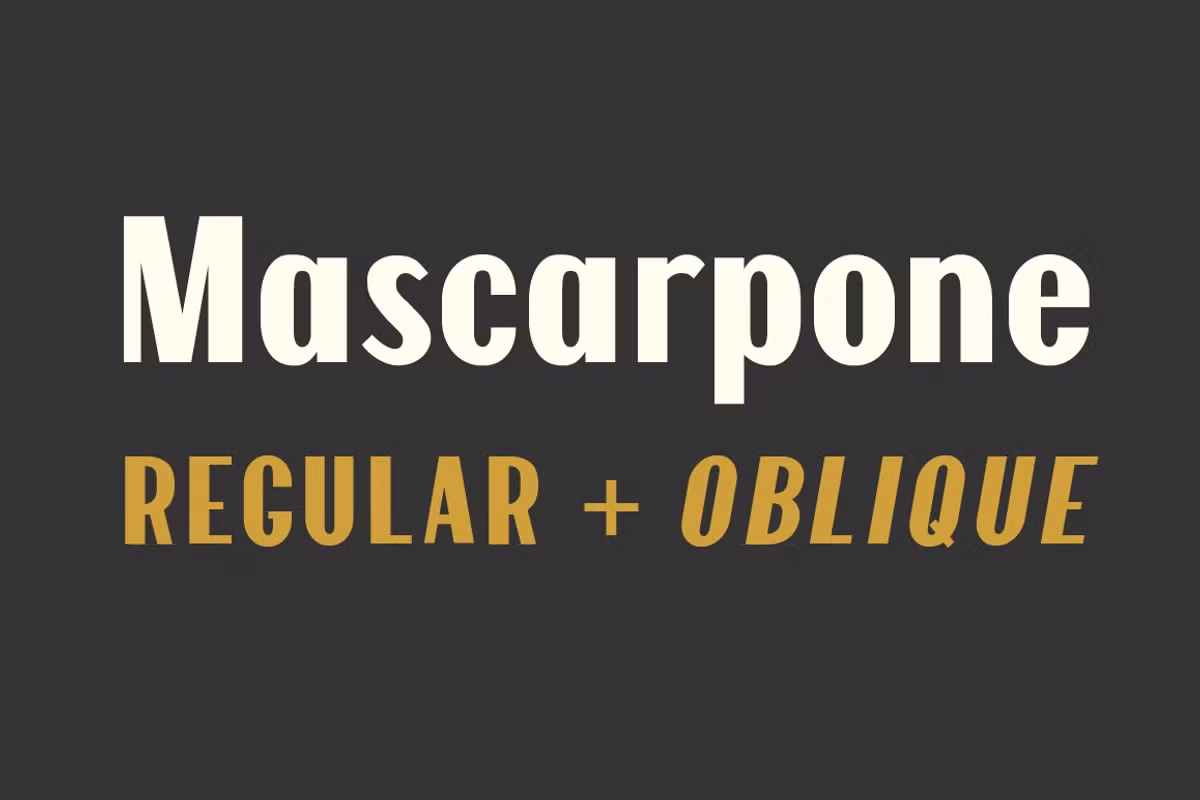
Mascarpone Typeface Free Download is a stylish and modern font that combines elegance with readability. Its clean lines and sophisticated design make it perfect for a variety of projects, including branding, logos, posters, and more. Whether you're working on a professional or creative design, Mascarpone adds a polished, contemporary touch that enhances any project.